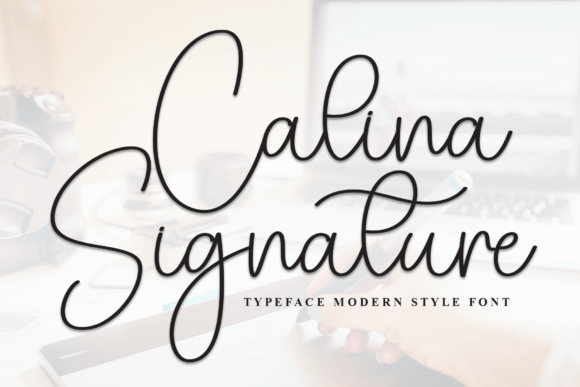
Give Your Designs a Personal Touch with Calina Signature Font
As designers, we’ve all been there – staring at a blank canvas, waiting for inspiration to strike. It’s the moment when a font catches our eye, and suddenly, our entire design takes shape. For me, it was the Calina Signature Font that sparked a creative breakthrough. Its elegant, handwritten script instantly added a touch of sophistication to my design, elevating it from ordinary to extraordinary.
Calina Signature Font is a stylish, flowing script that’s perfect for logos, invitations, and branding. Its personal and sophisticated feel makes it an ideal choice for designers looking to add a unique touch to their work. Whether you’re creating a wedding invitation or a corporate logo, this font is sure to leave a lasting impression. With its versatility and charm, the Calina Signature Font is a valuable addition to any designer’s toolkit.
Calina Signature Font Key Features
- Font Family: Calina Signature Font is a beautiful, elegant script font designed to add a touch of sophistication to any design.
- Unique Characteristics: Calina Signature Font features a unique blend of classic and modern elements, with intricate flourishes and subtle texture, making it perfect for creating eye-catching designs.
- Language Support: The font supports a wide range of languages, including Latin, Cyrillic, and Greek, making it a versatile choice for designers working on multilingual projects.
Calina Signature Font Review
I recently had the chance to work with Calina Signature Font, and I must say it’s a beautiful addition to any design project. Here’s my honest review:
- The font’s elegant and sophisticated feel makes it perfect for luxury brands or high-end designs.
- It has a nice balance of curves and lines, which gives it a unique and stylish touch.
- The font is highly legible, making it easy to read even at smaller font sizes.
- The font comes in a range of weights and styles, giving designers a lot of flexibility when it comes to customization.
- The font may be a bit too ornate for some designs, which could make it difficult to read or use in certain contexts.
- The font doesn’t have as many language support options as some other fonts, which could be a limitation for designers working on international projects.
Overall, I think Calina Signature Font is a great choice for designers looking to add a touch of elegance and sophistication to their projects. While it may have some limitations, the font’s unique style and high legibility make it a solid addition to any design library.
Calina Signature Font is perfect for:
- Invitations and event materials
- Business cards and stationery
- Marketing materials and social media graphics
Alternatives to Calina Signature Font